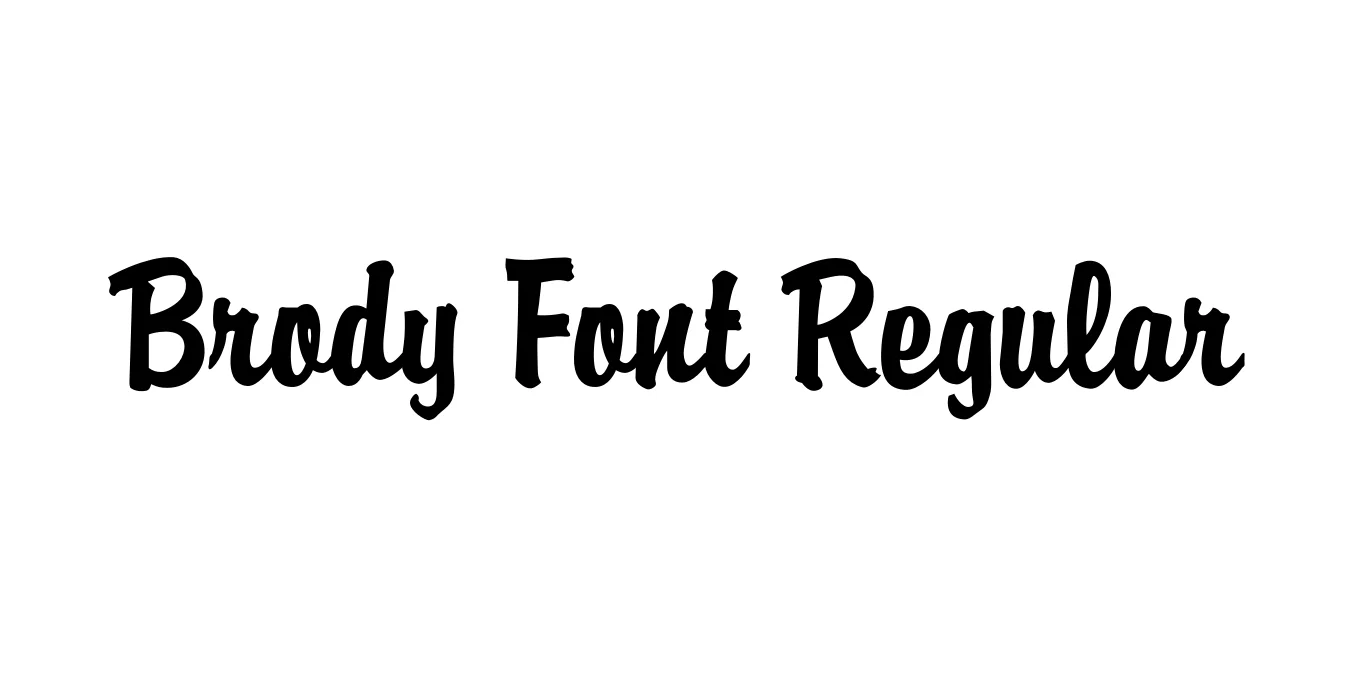
Brody Font Regular
Designed by Harold Lohner (based on design by Fred E. Brody)
Brody Font Regular is a classic script typeface that embodies the smooth, flowing energy of mid-century hand-lettering. Originally released by American Type Founders (ATF) in 1953 and later digitized by Harold Lohner, this font features heavy brush strokes and connected characters that suggest a professional sign-painter's touch. It bridges the gap between formal calligraphy and casual advertising script, providing a nostalgic yet timeless aesthetic that remains popular in contemporary design.
The typeface is characterized by its expressive rhythm and balanced weight, making it highly legible for a script font. Designers frequently turn to Brody when they need to inject a sense of personality and warmth into a project. It is particularly effective for large-scale display work where the intricate connections and bold curves of the letterforms can be fully appreciated, serving as a staple for retro-themed branding and high-impact headlines.